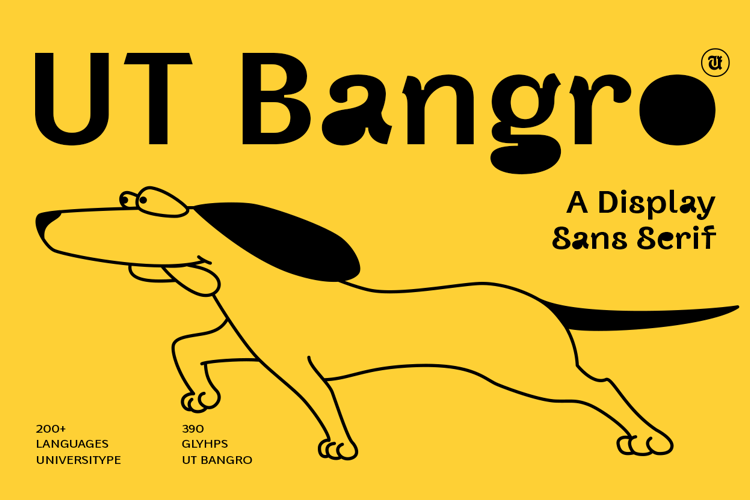
UT Bangro Font
Looking to make your design truly unforgettable? Meet UT Bangro – a bold display sans serif that combines playful energy with confident structure. Every curve, notch, and terminal has been carefully crafted to bring your words to life. It’s a typeface that doesn’t just speak—it shouts, dances, and smiles.
UT Bangro was designed for standout moments. Whether it’s a brand identity, editorial spread, poster design, or product label, this font adds instant charm and visual rhythm. The unique detailing and expressive alternates make it versatile, lively, and full of personality—without ever sacrificing legibility.
Who Is It For?
UT Bangro is made for creatives who dare to stand out:
- Designers building expressive, personality-driven brands
- Art directors crafting energetic, modern editorial layouts
- Packaging and merchandise creators who need visual punch
- Digital creators seeking a scroll-stopping headline font
- Anyone tired of soulless sans serifs and craving something fresh
If your work thrives on personality, movement, and play—UT Bangro belongs in your font library.
Key Features
- Playful sans serif with sculptural curves and teardrop terminals
- Alternates that add variation and depth (see “a”, “g”, and “o”)
- Bold ink traps and dynamic forms that command attention
- 390+ glyphs with multilingual support for over 200 languages
- Designed for display use: posters, branding, editorial, web, packaging & more